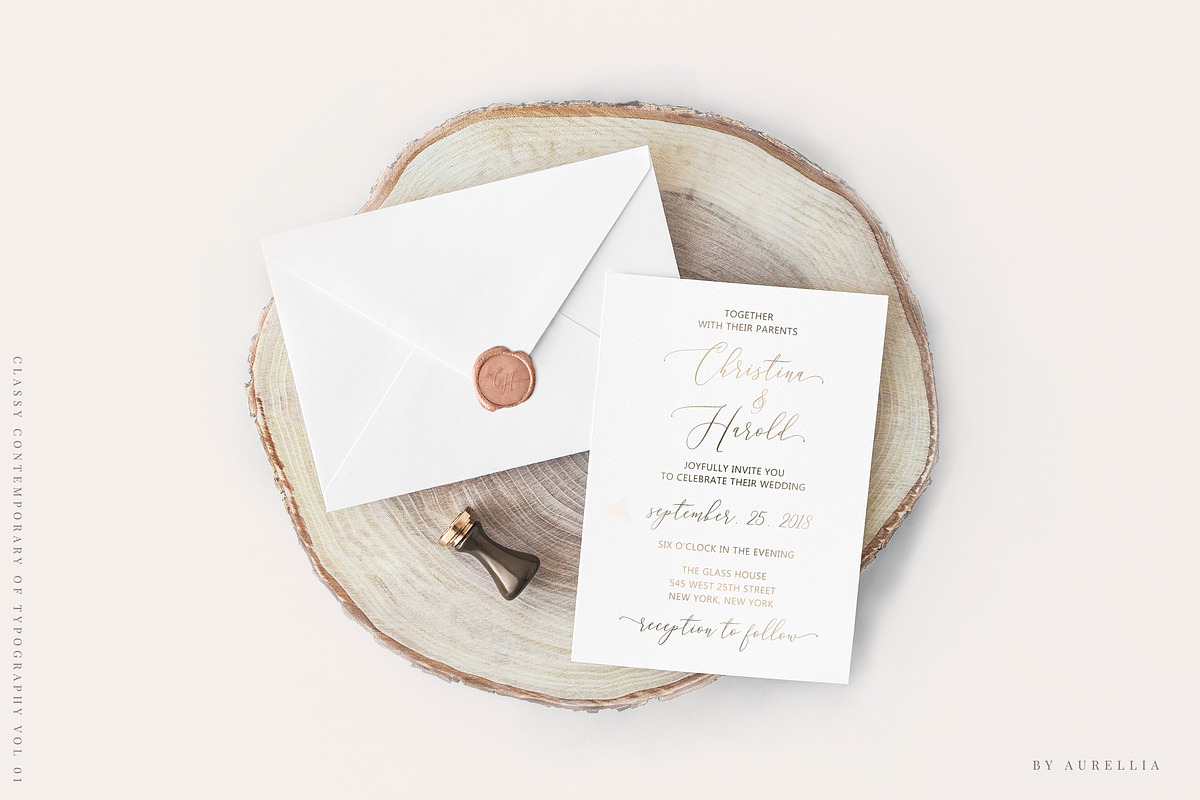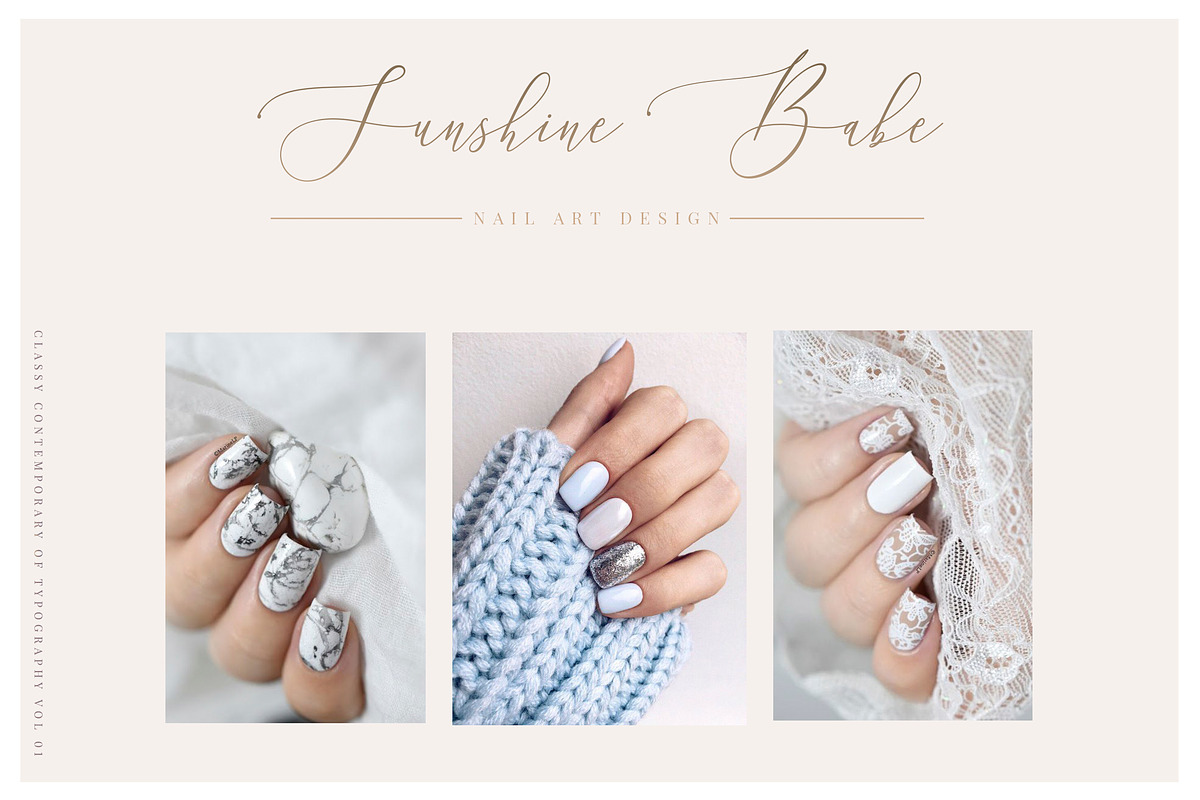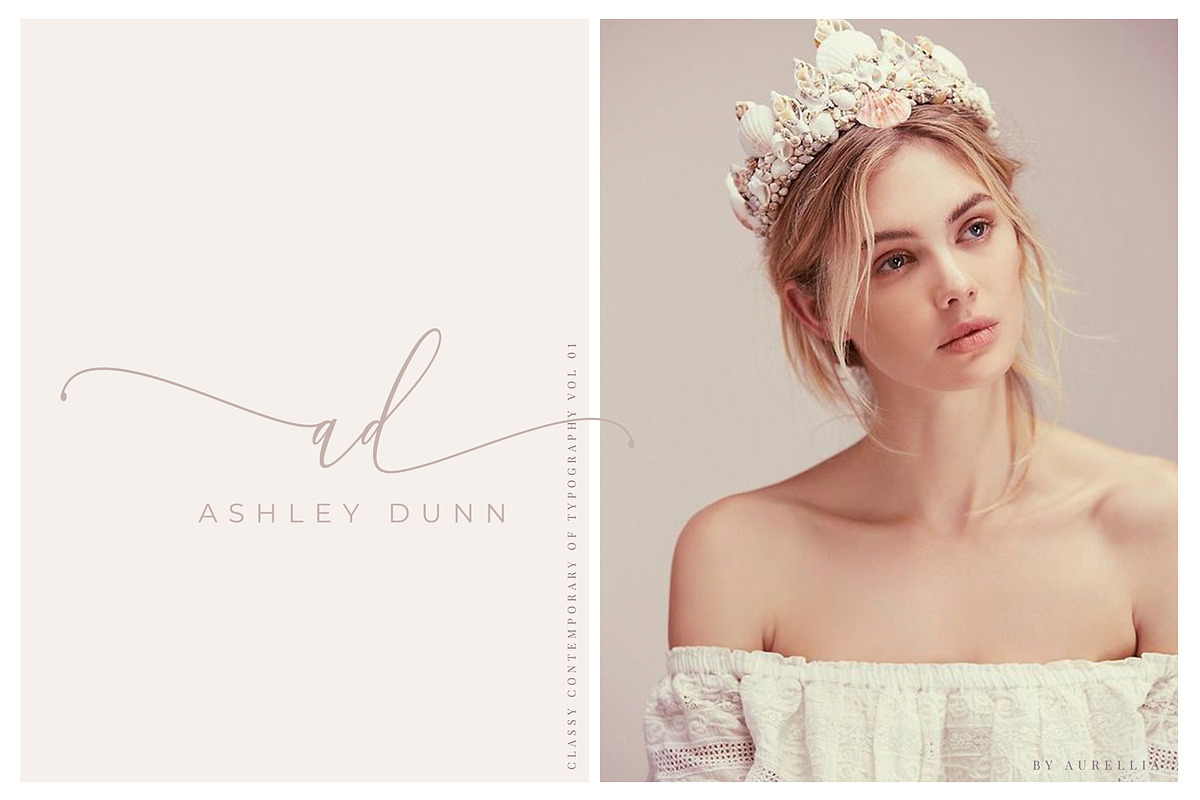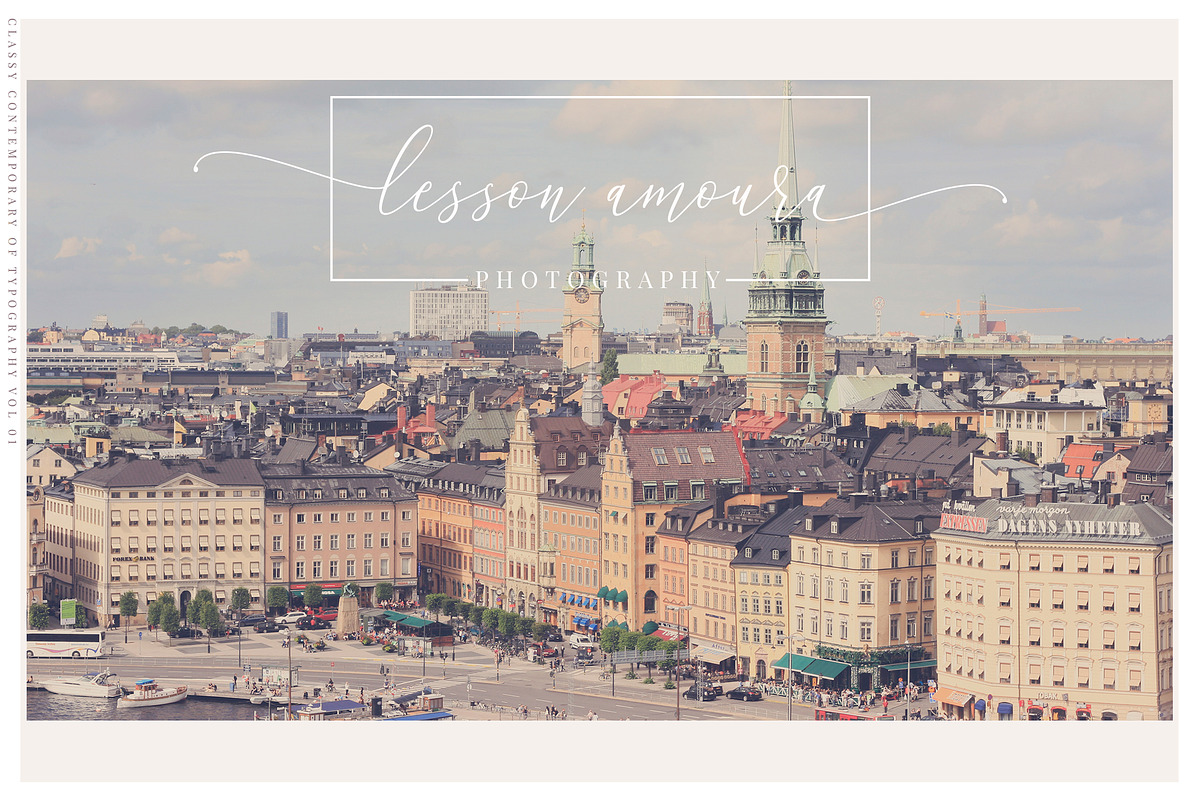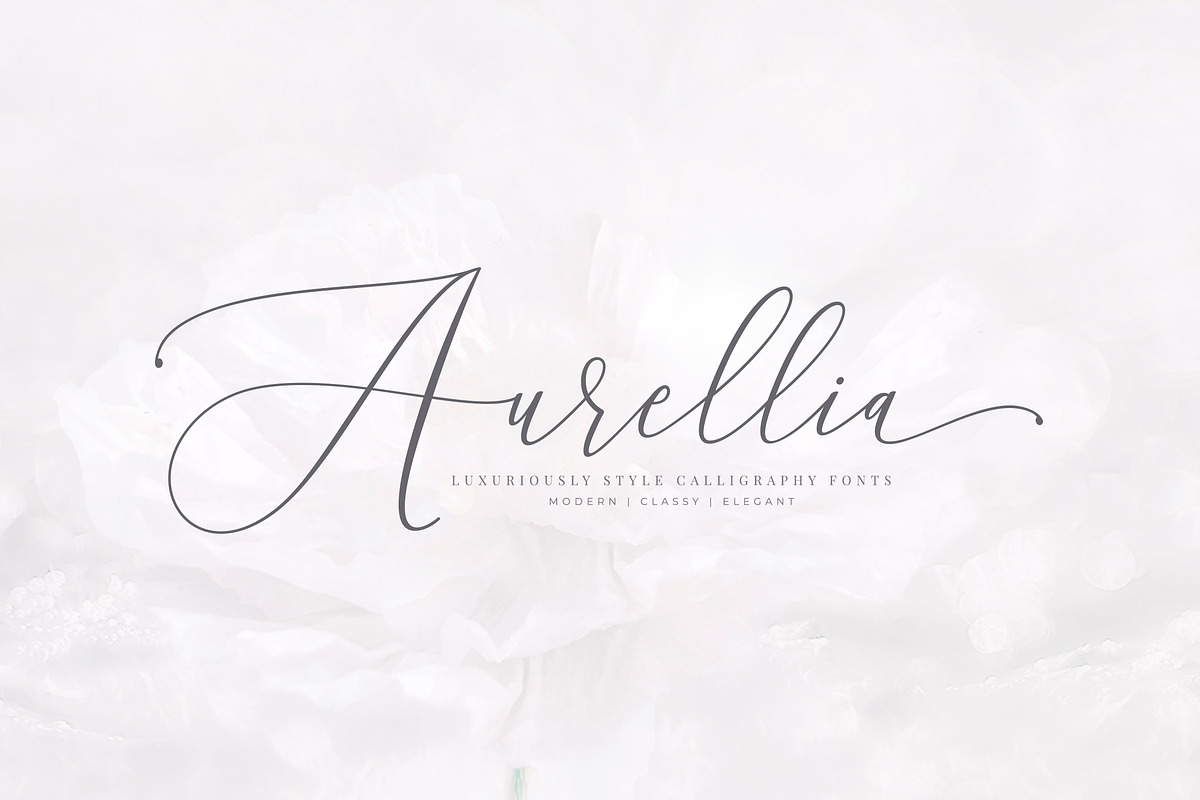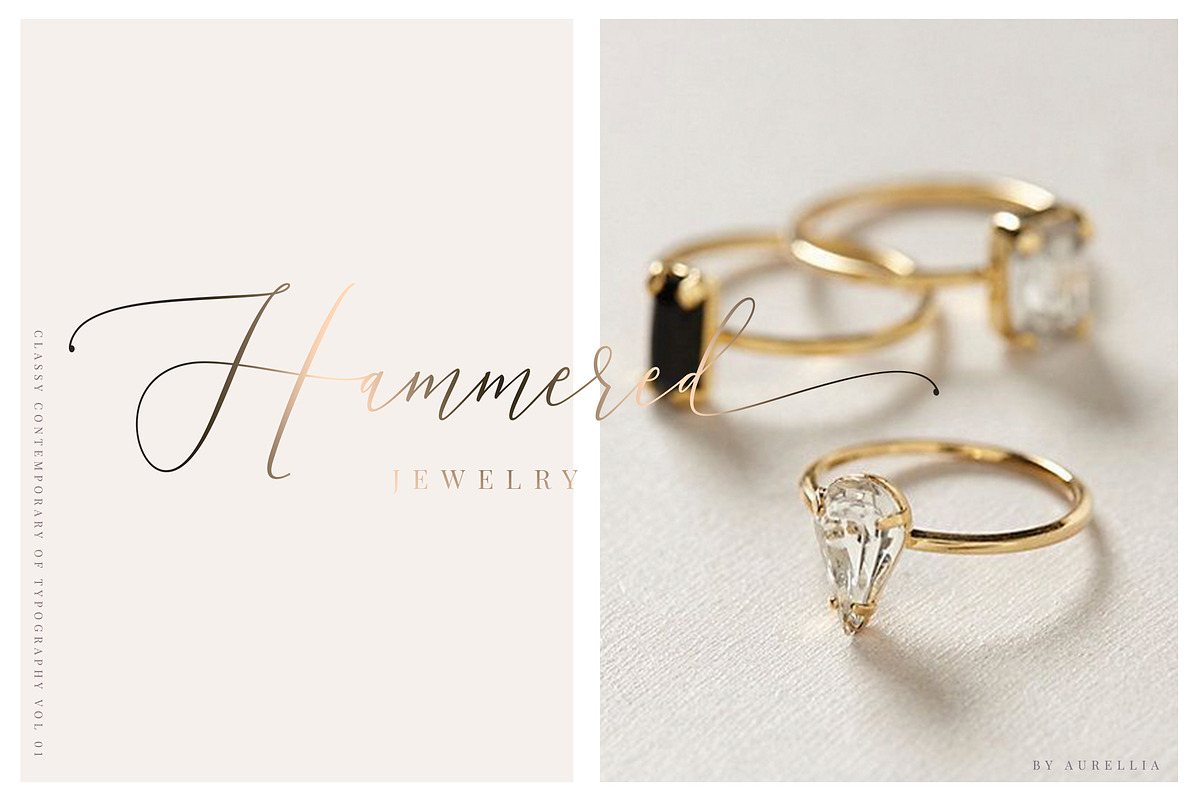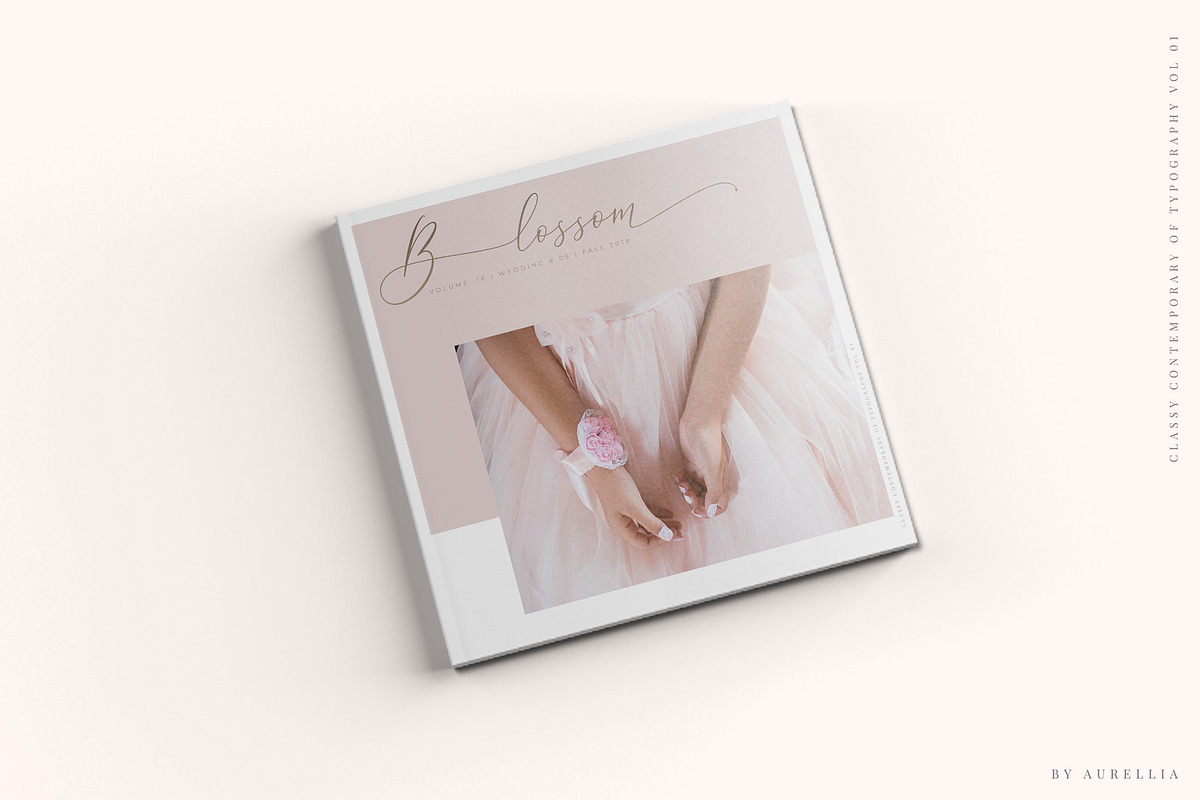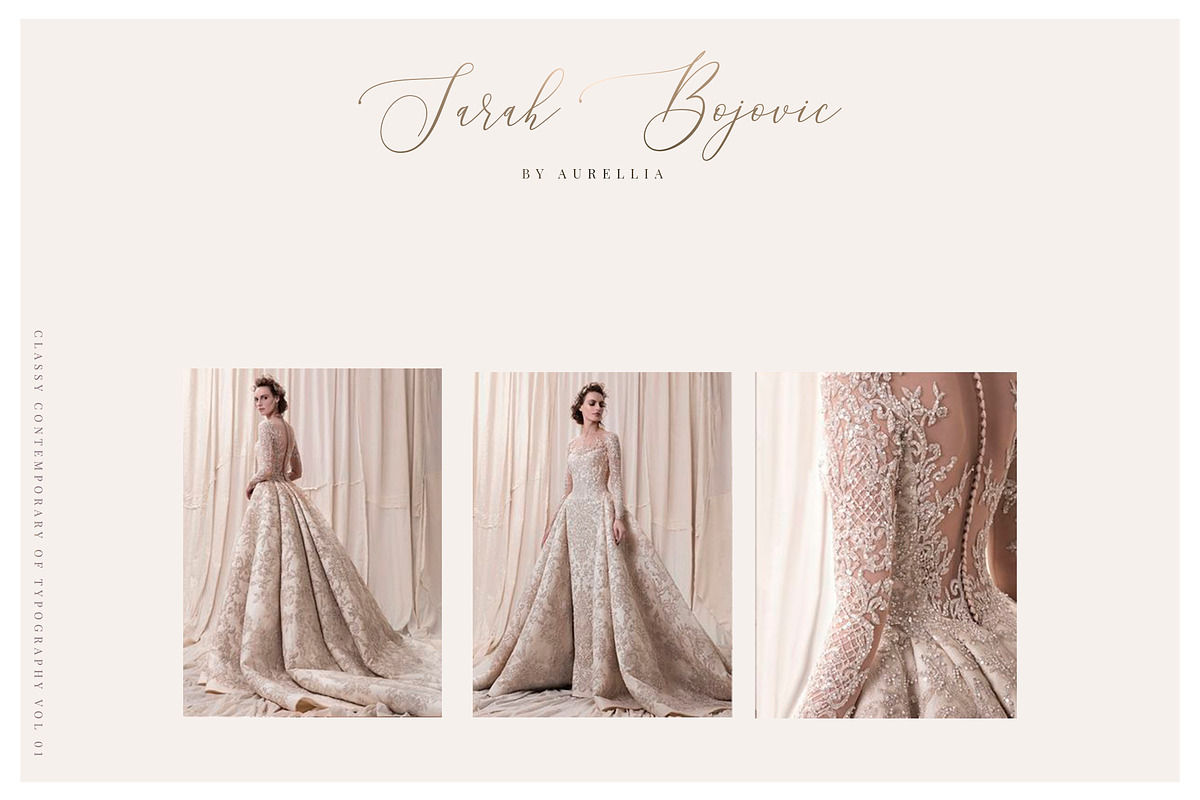
Aurellia Script Classy Fonts
Aurellia is a classy handwriting font with a distinctive curve, inside with some interesting features that are perfect for a feminine-style project.
Aurellia have a features start and end swashed on uppercase and lowercase letters, very beautiful ligature and this font is very qualified when you use for wedding design projects, fashion, greeting, invitation, social media and much more.